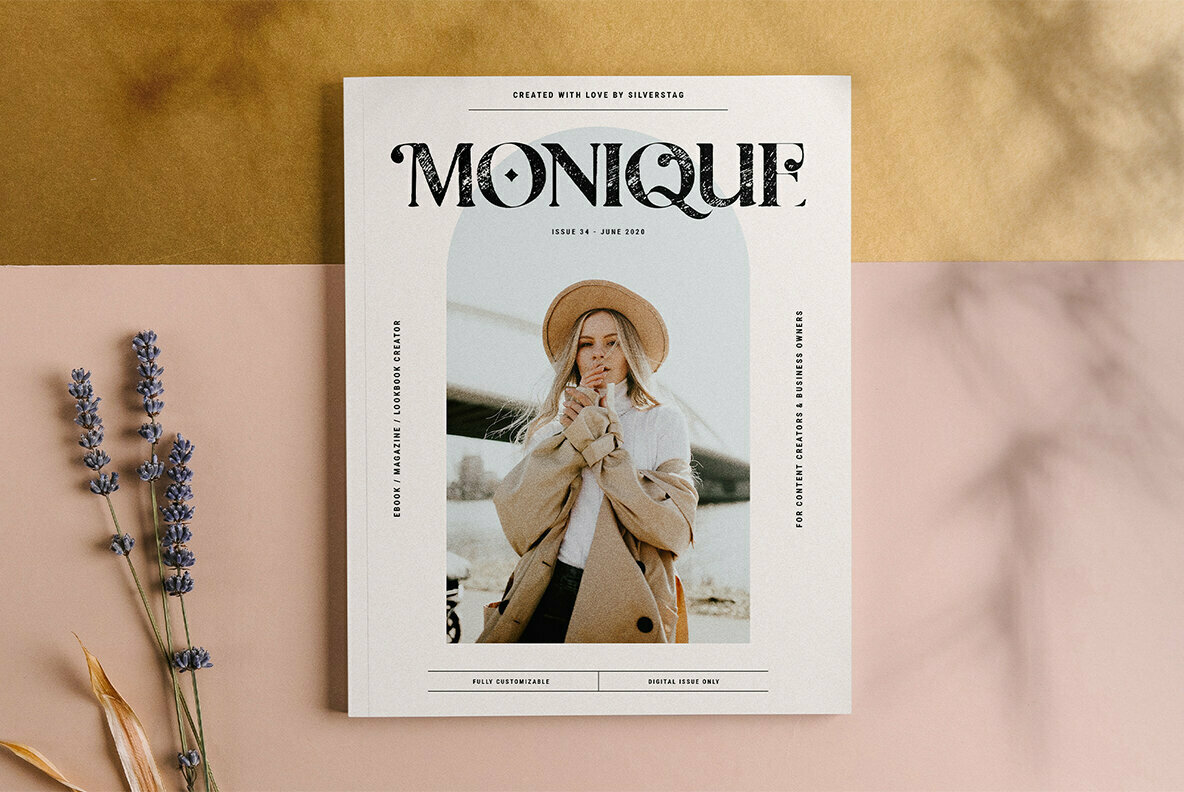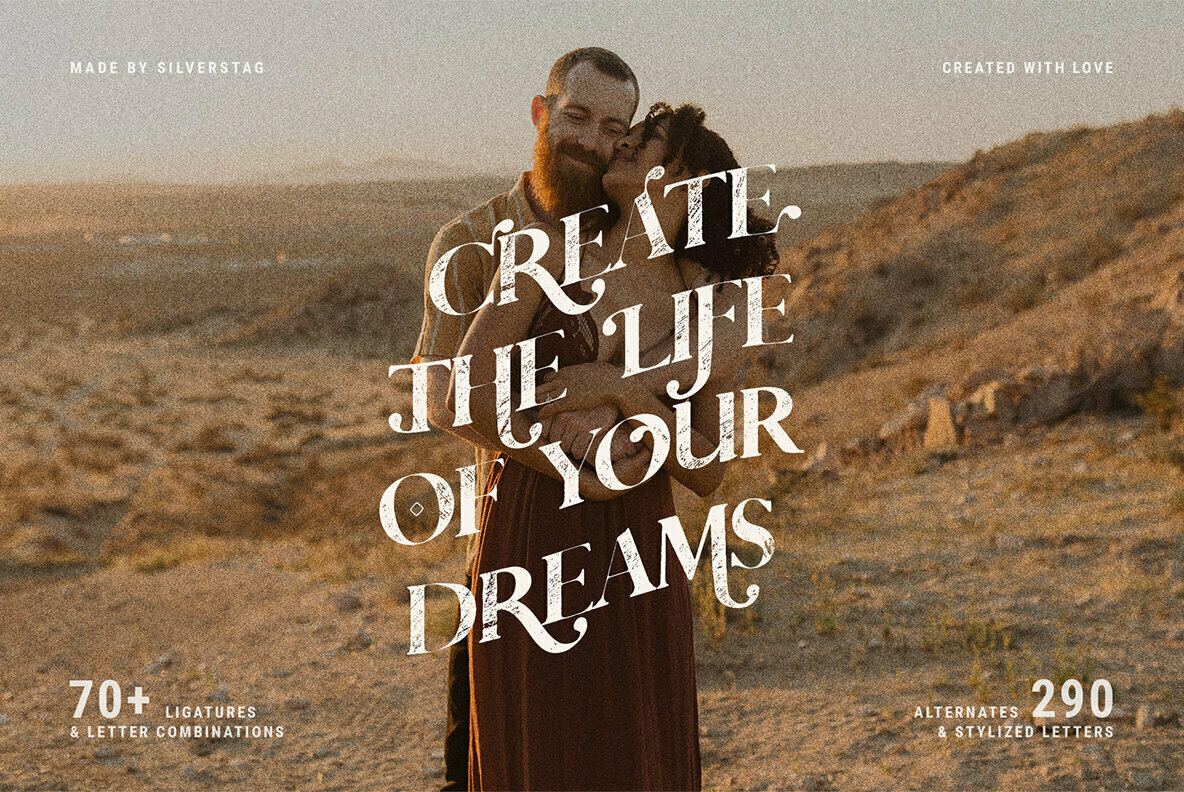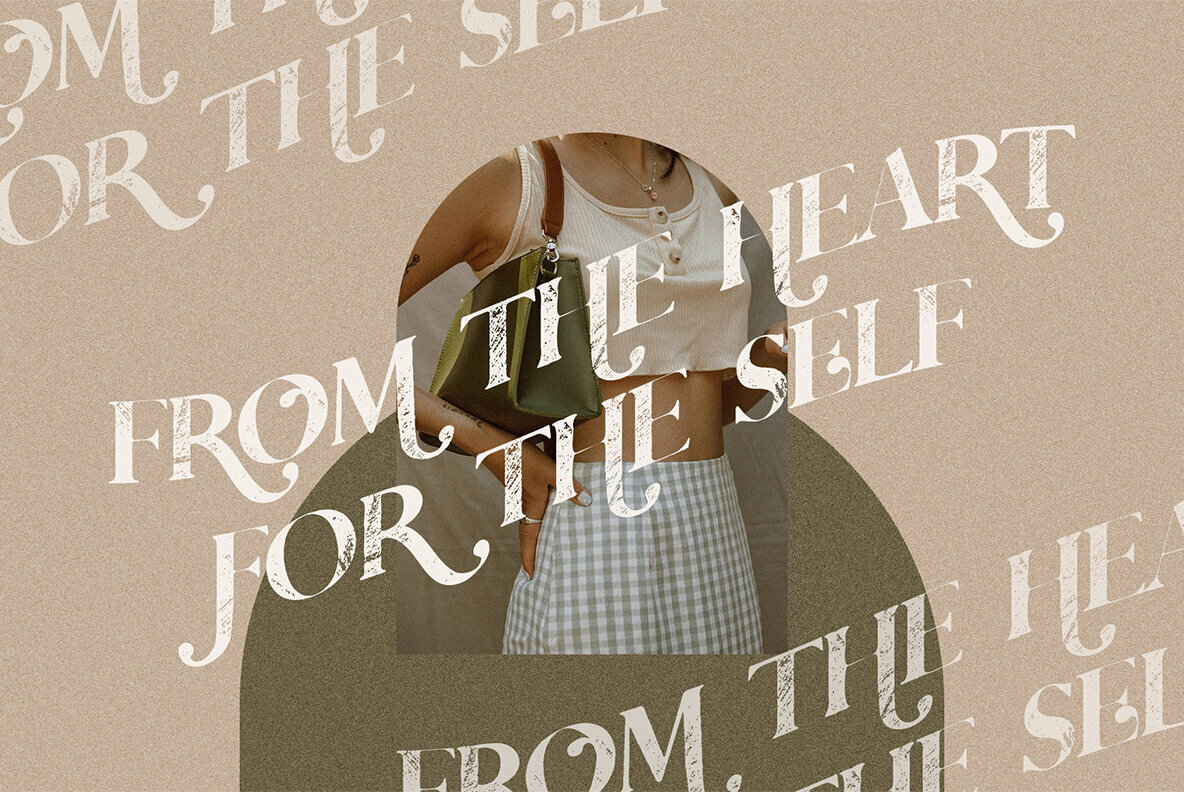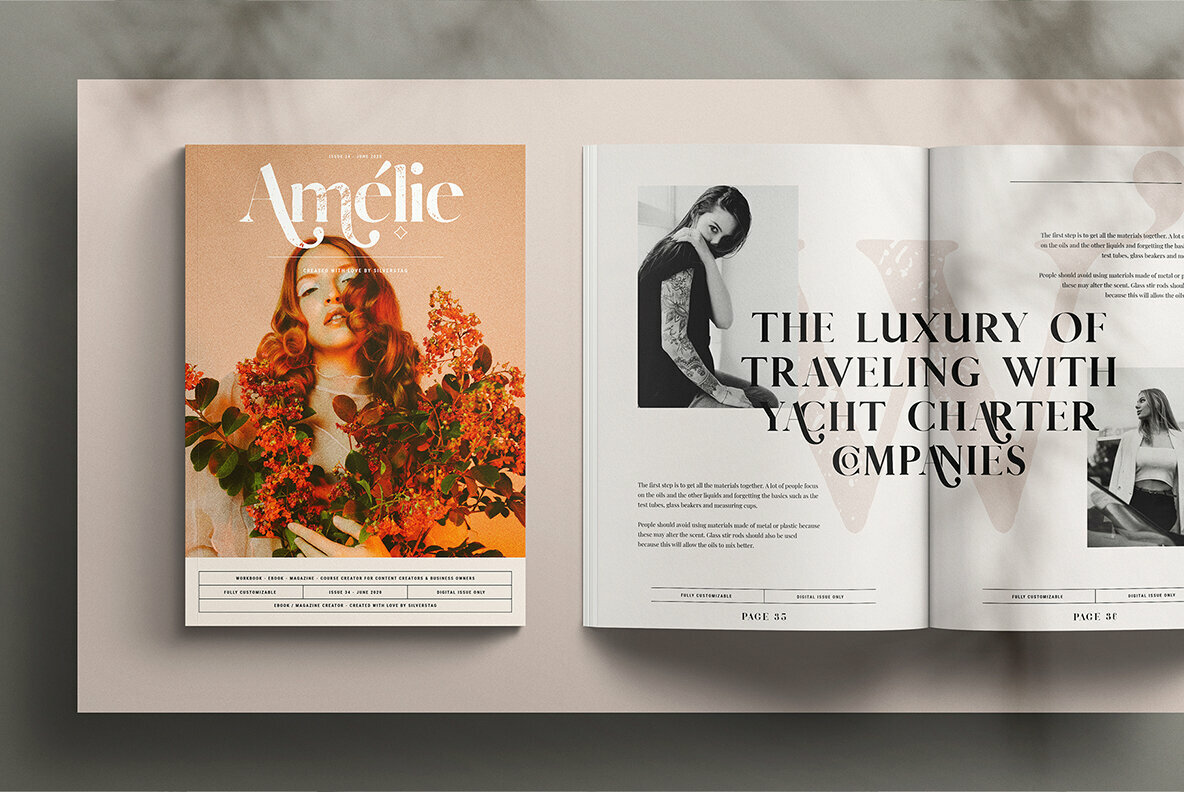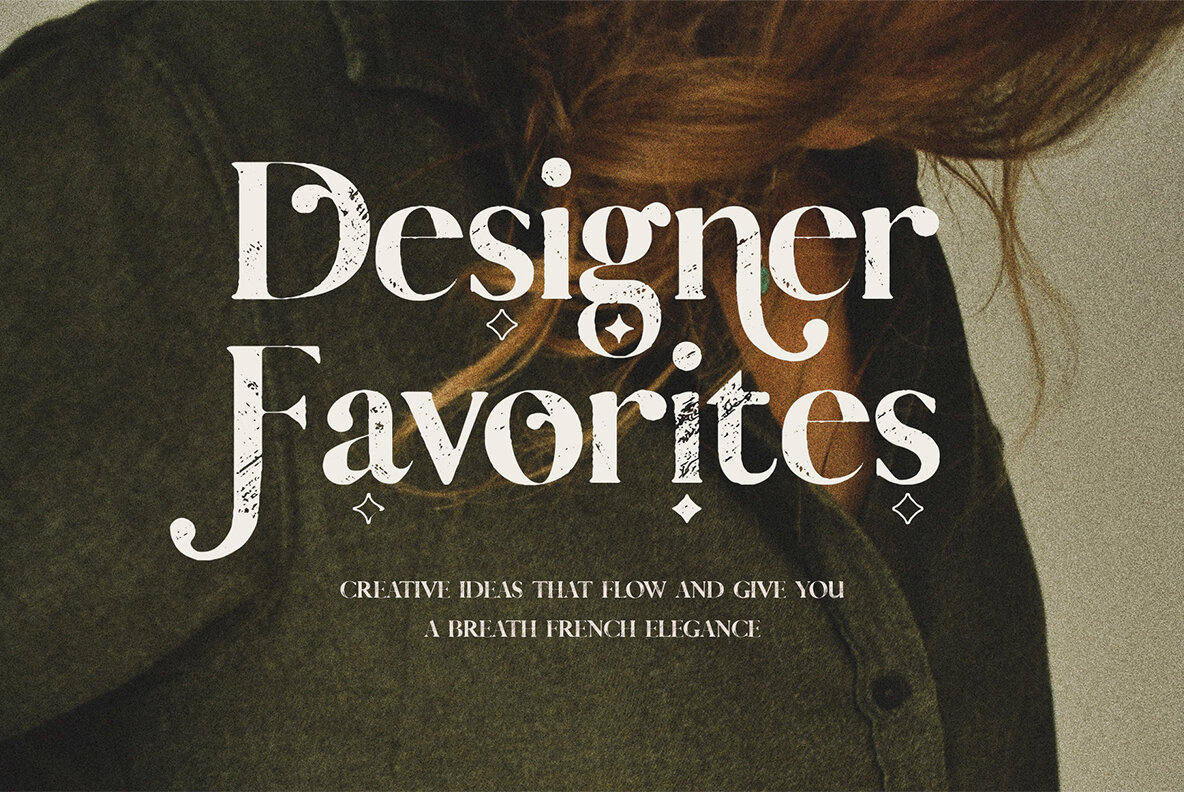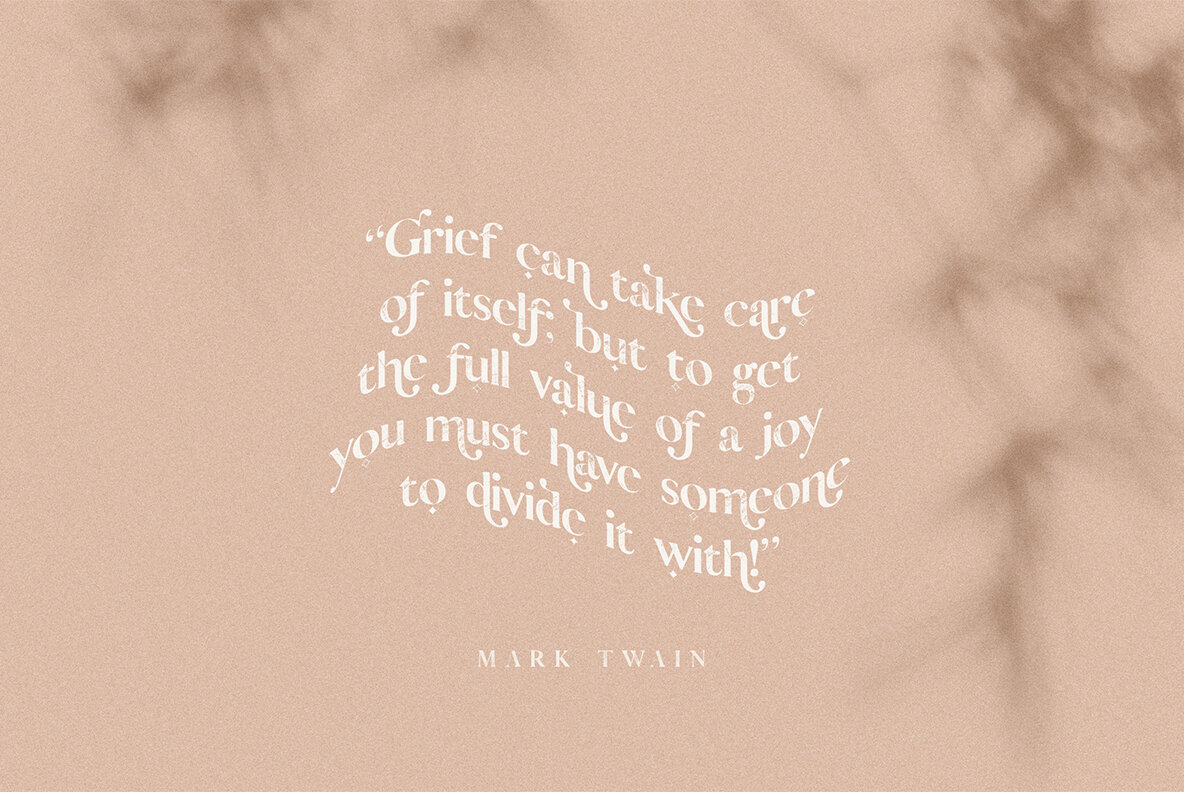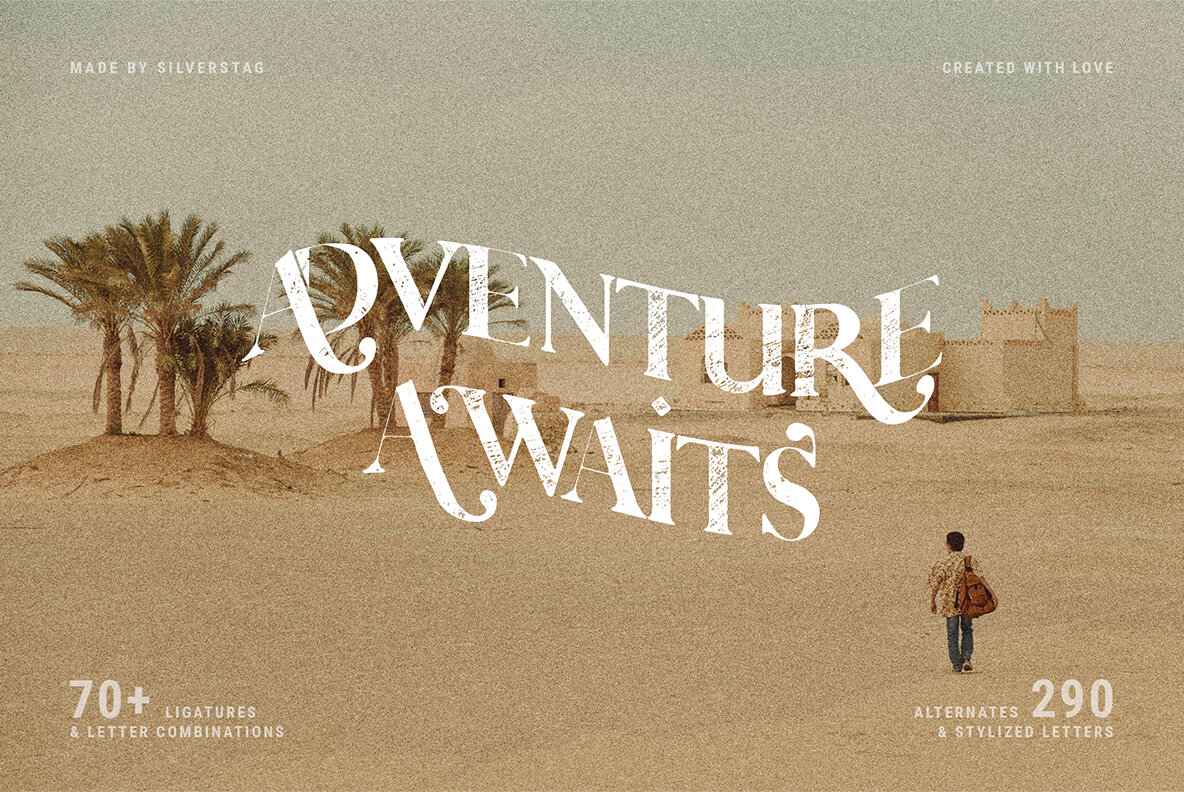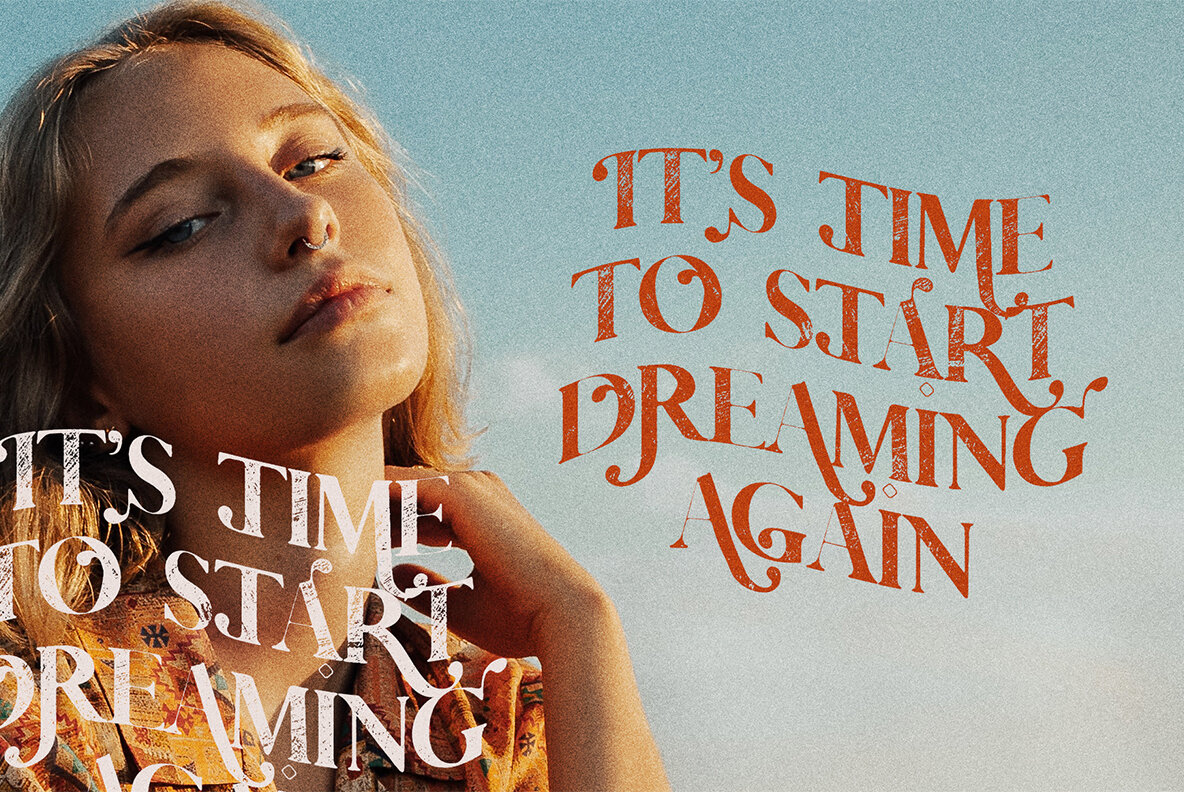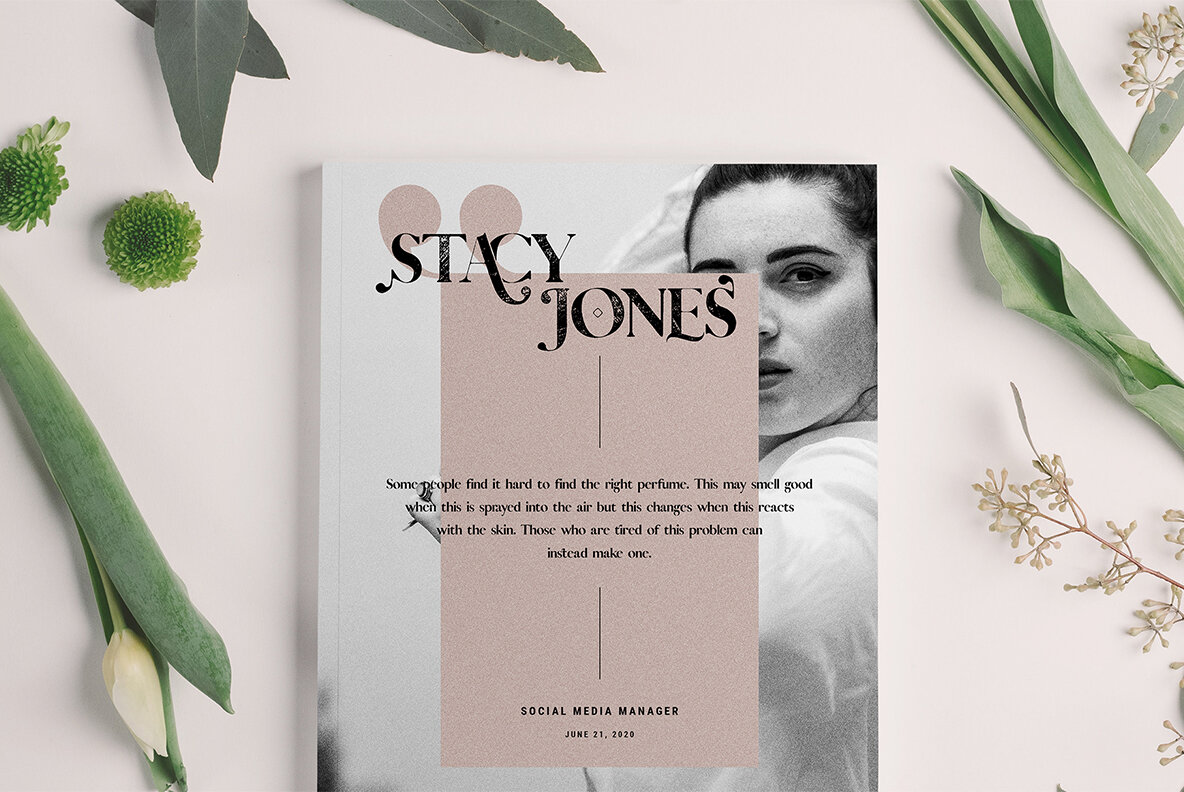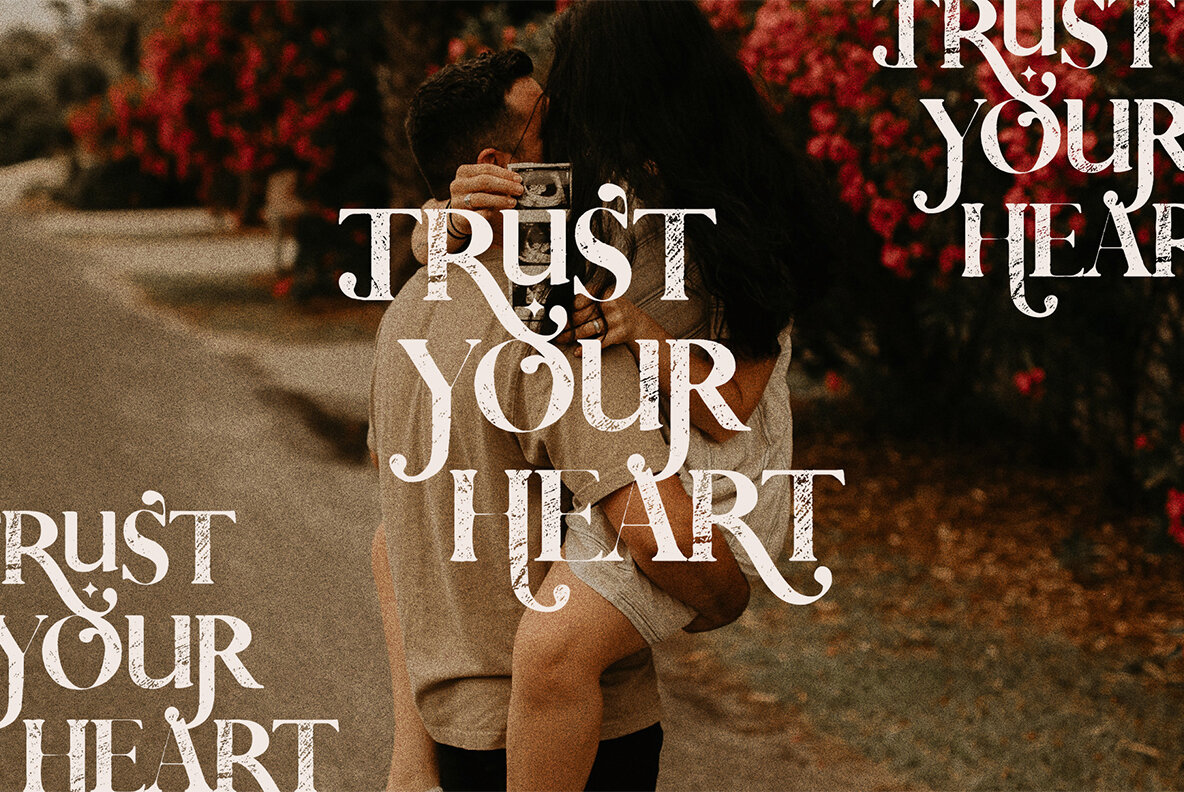
Vicky Christina Font
Vicky Christina Regular
Vicky Christina Vintage
Hey everyone, are you ready for a completely reimagined look for one of my most popular fonts? A brand new image that makes every single letter completely unique and different? Well, I have been working hard during the summer to give you exactly that. A new version of a popular font that makes it even more unique and classy. I am happy to present you the vintage version of Vicky Christina, a cool serif font with over 360 creative ligatures and alternates!
I have been working on the original version for quite a while and the ideas were just popping all around for more ligatures, more alternate letters, new combinations, new swirls,... And I ended up with over 360 alternates and ligatures in one serif font! Now with a creative new texture effect your projects will be even more unique!
Whether you have a client that needs a new chic logo, or you're designing your social media posts. Maybe you're preparing your wedding mood board, stationery, invitations, Vicky Christina Ligature font is just perfect for all of that and more. Check out the photos I have prepared for you to see what you can do with it and happy creating!